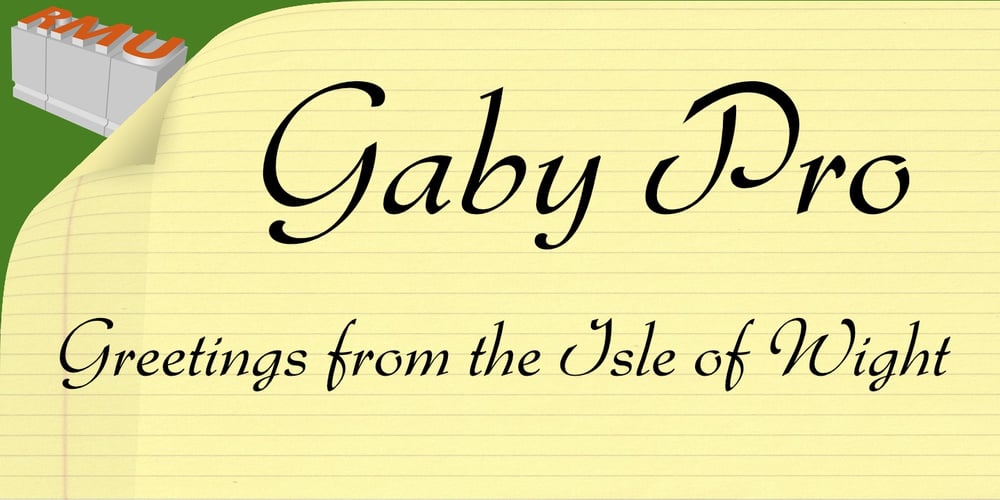
Gaby Pro Font Family was designed by Ralph M. Unger and published by RMU. Gaby Pro contains 1 styles and family package options. Inspired by the 1947 Weber font Gabriele, Gaby Pro is a freshly designed versatile and everyday cursive font that can be used for a wide range of printed products and for web design as well. The font was carefully extended for multilingual use.